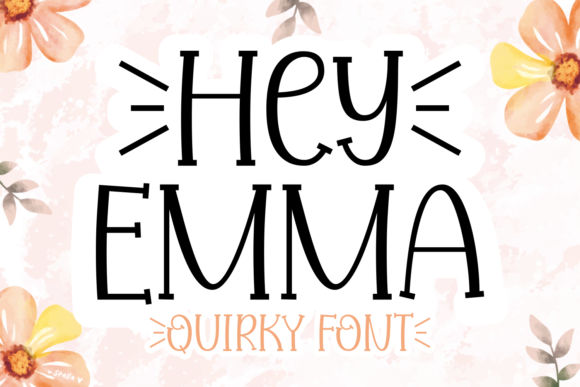
Introducing Hey Emma Font, a quirky and modern serif font that will bring a touch of creativity to your designs. With its tall and thin characters, this font is bound to captivate and inspire. Whether you're designing posters, quotes, Easter cards, birthday invitations, kids' clothing, t-shirts, logos, or wall art, Hey Emma Font is the perfect choice to make your creations stand out.
Crafted by the talented team at Creative Fabrica Fonts, Hey Emma Font is not your average serif font. It oozes personality and uniqueness, making it a must-have for anyone looking to add a dash of originality to their projects. The sleek and slender characters will draw attention and leave a lasting impression on your audience.
Imagine the impact of using Hey Emma Font on your next poster. The words will come to life, grabbing attention and evoking a sense of curiosity. Your quotes will resonate with readers, leaving them inspired and motivated. Easter cards will become even more delightful with the playful and stylish touch of Hey Emma Font. It's the perfect addition to any festive design.
Hosting a birthday party? Wow your guests with eye-catching invitations featuring Hey Emma Font. Its modern and quirky style will set the tone for a memorable celebration. And if you're in the business of kids' clothing, this font will add a touch of whimsy to your designs, making them irresistible to both children and parents.
But Hey Emma Font doesn't stop there. It's also the ideal choice for t-shirts that make a statement. Whether you want to spread a positive message, showcase your brand, or simply stand out from the crowd, this font will help you achieve it effortlessly. And when it comes to logos, Hey Emma Font will make your brand unforgettable, leaving a lasting impression on potential customers.
Don't forget about wall art! With Hey Emma Font, you can transform any space into a creative oasis. Whether it's your home, office, or a trendy cafe, this font will add a touch of charm and elegance to any wall.